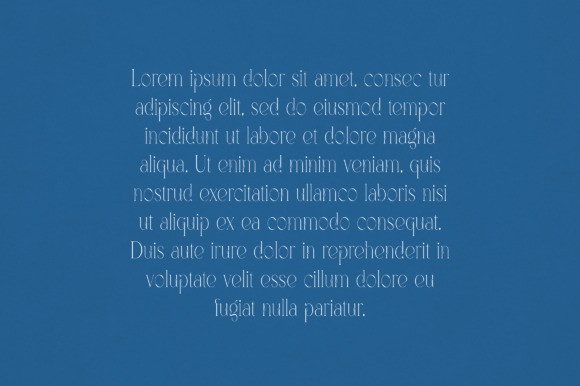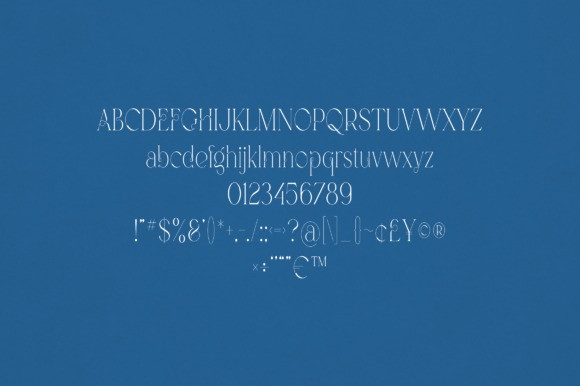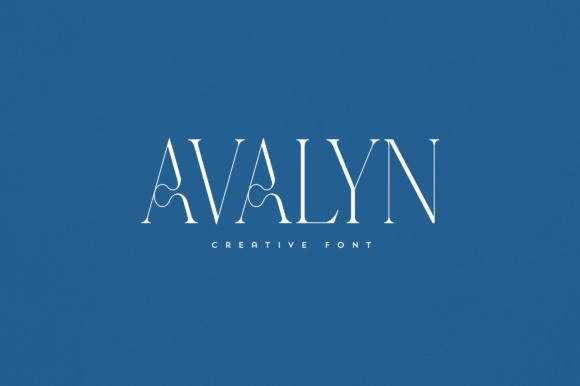
Avalyn Font
Avalyn Font is an elegant and versatile font that will make your typography truly unique! It will enchant every logo, branding, headline, or plain text!